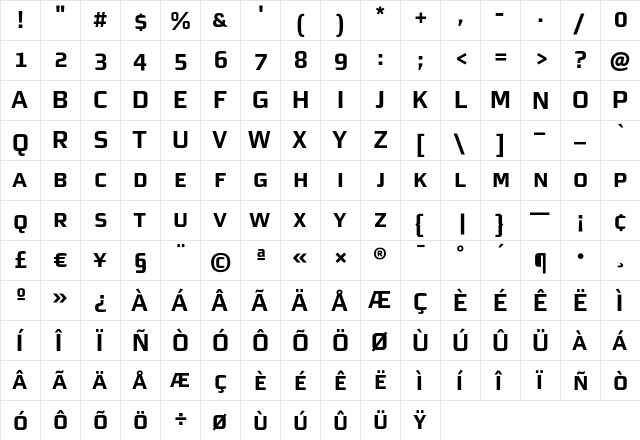
MorganSnExpert Bold
Design Context for MorganSnExpert Typeface
MorganSnExpert is a composed and adaptable typeface that performs quietly and consistently across a wide range of design contexts. The heavy weight commands attention and anchors typographic hierarchies.